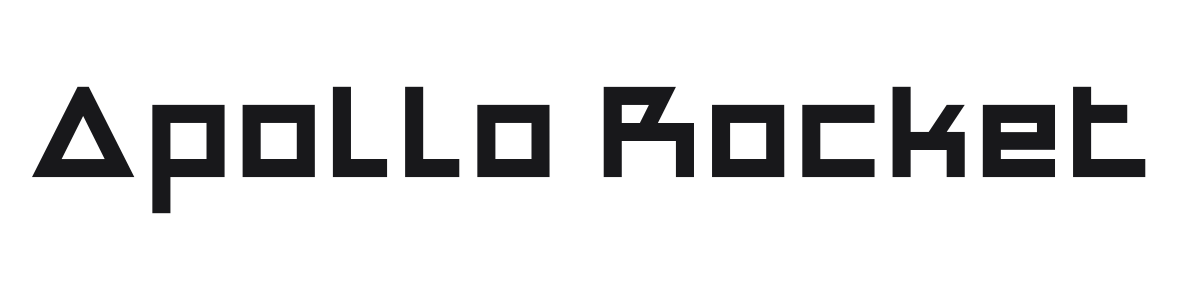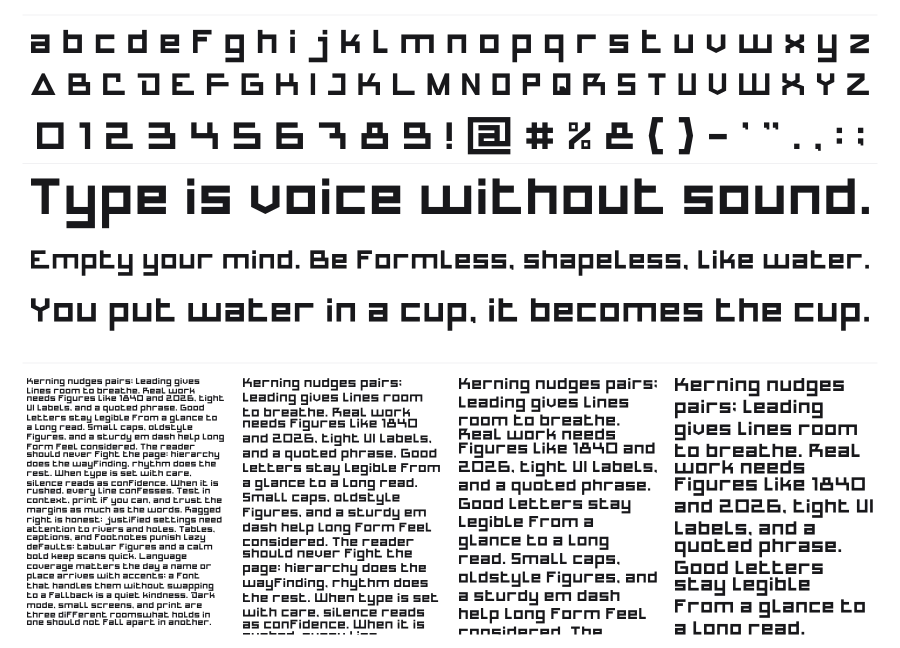
Apollo Rocket
Apollo Rocket is a bold squared techno sans with a strict grid-based construction and uniformly blunt terminals. Every character is built from the same modular geometry, giving it a dense, mechanical consistency that reads instantly as space-age or industrial. It carries weight at large sizes and works well wherever a hard-edged, assertive tone is needed.